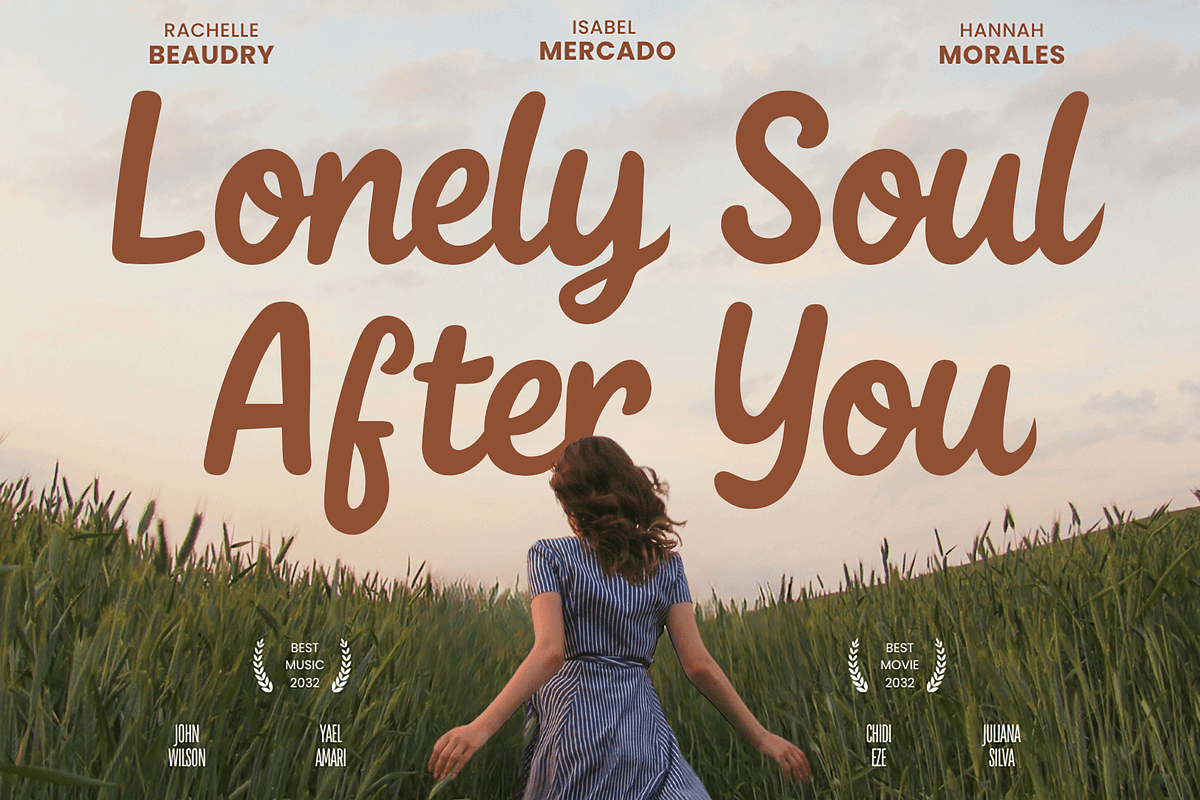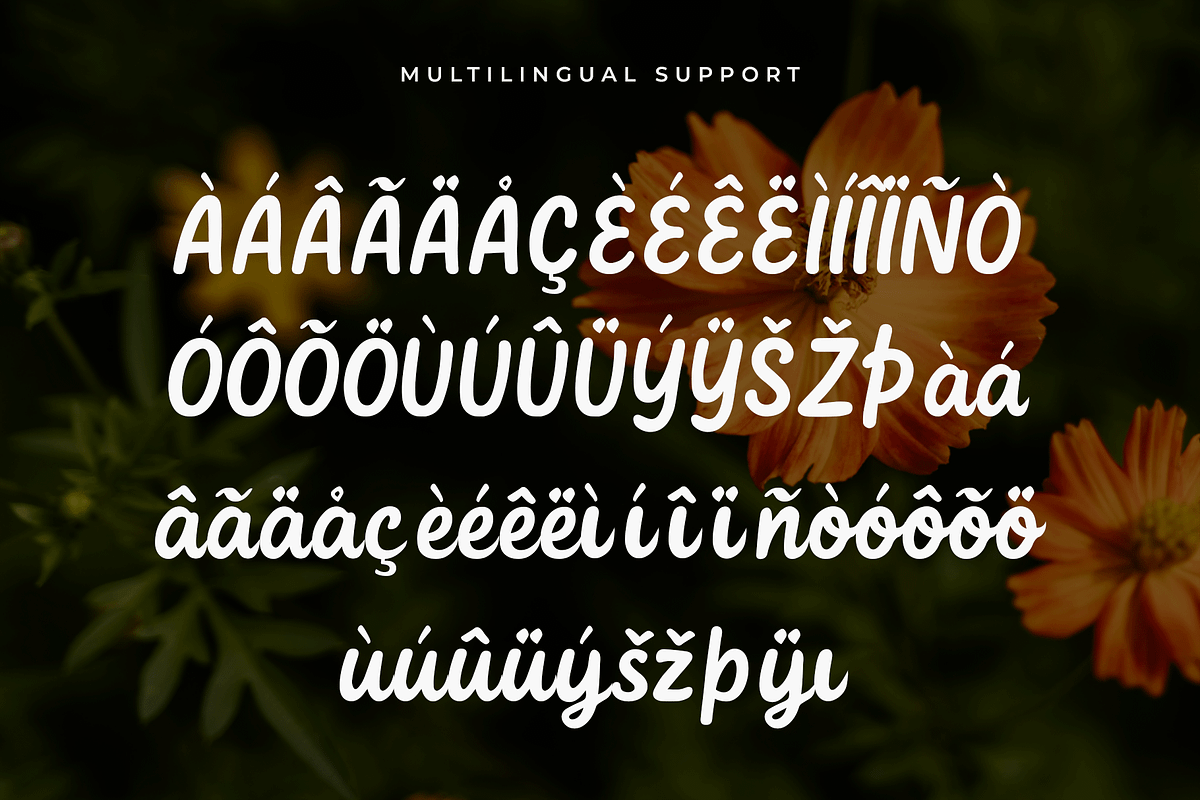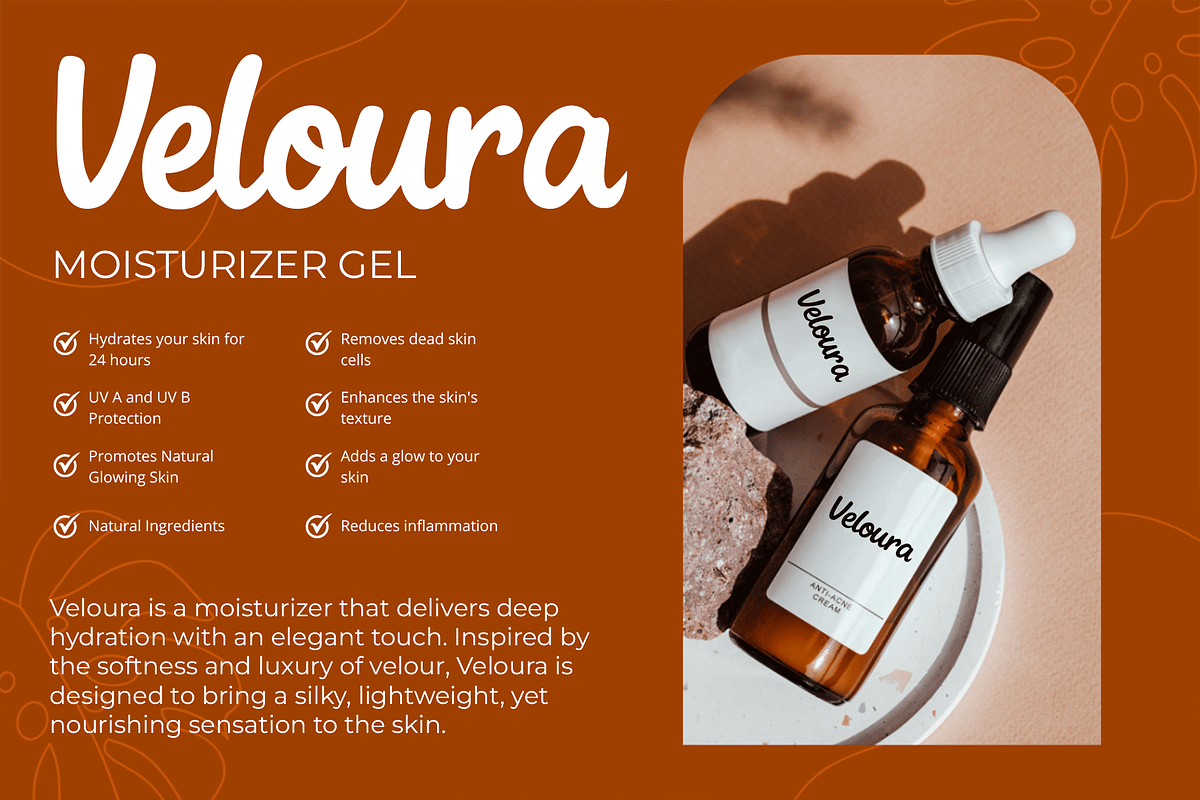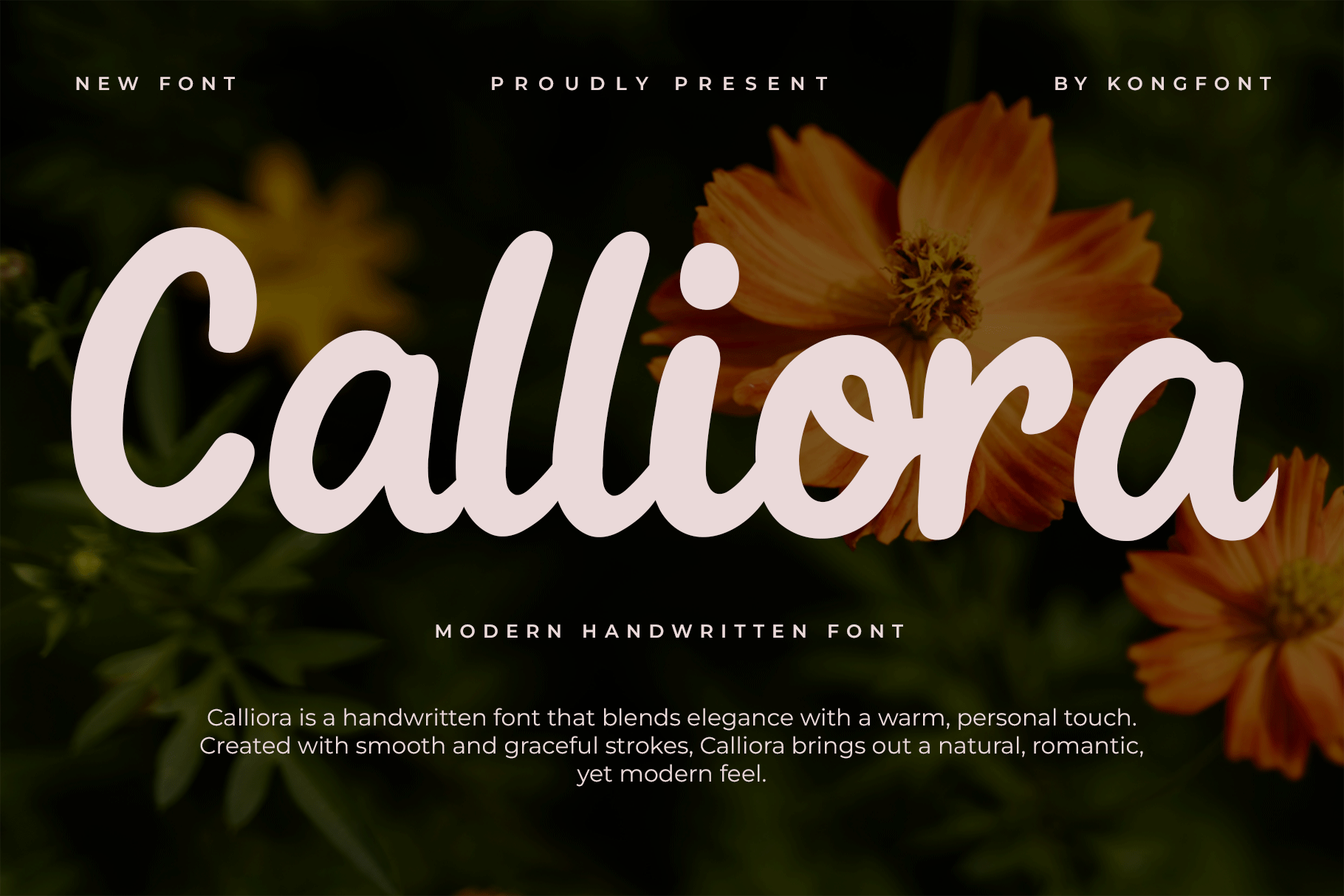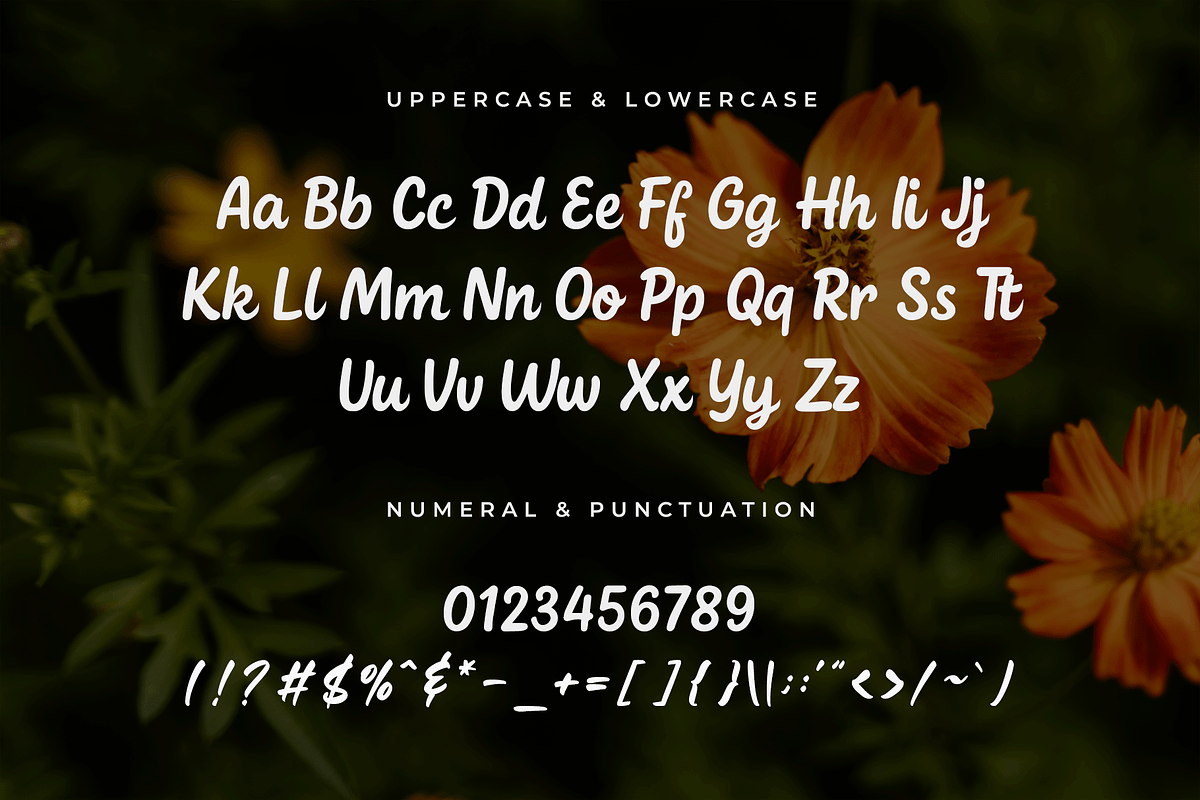
Calliora – Modern Handwritten Font
Meet Calliora, a modern handwritten font that blends natural flow with refined elegance. Designed to bring a personal and stylish touch to your projects, this typeface captures the beauty of handwriting with smooth curves, graceful lines, and a balanced structure.
Perfect for branding, logos, wedding invitations, greeting cards, product packaging, and social media designs, Calliora adds warmth and sophistication wherever it’s used. Its versatile style works equally well for both casual and upscale projects, making it an essential tool for designers who want to stand out.
The font includes uppercase, lowercase, numerals, punctuation, and multilingual support—ensuring creative freedom for diverse design needs.